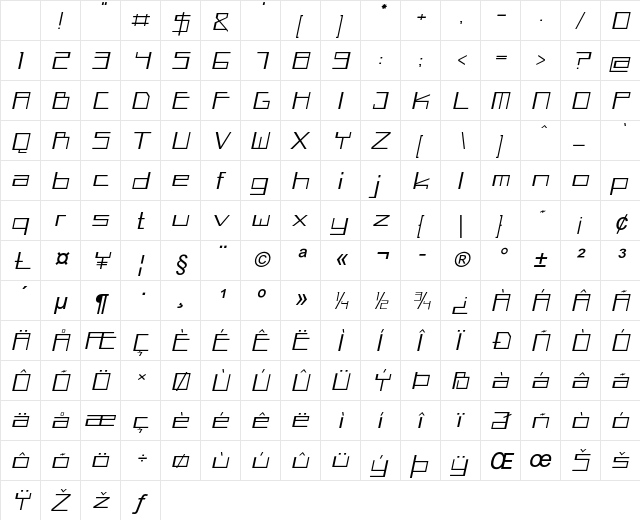
Corta is a composed and adaptable typeface that performs quietly and consistently across a wide range of design contexts. The slanted form adds forward momentum and visual energy.